Commercial Type is a joint venture between me and London-based designer Paul Barnes. We have collaborated since 2004, since teaming up to design type for The Guardian, a daily newspaper in London. Our foundry publishes retail fonts developed by Paul and me, our staff designers Miguel Reyes and Greg Gazdowicz, and outside collaborators such as Susana Carvalho and Kai Bernau of Atelier Carvalho Bernau in the Netherlands and our former staff designer Berton Hasebe. There are six of us in total, also including our technical specialist Mark Record and our director of licensing Monica Shane Sanchez. In addition to running the foundry, we create custom typefaces for clients all over the world, primarily but not exclusively publications. We launched our website at the beginning of 2009, and we have worked to build a small but growing library with a balance between highly versatile “vanilla” typefaces that can do whatever a designer needs, and expressive typefaces that allow a designer to sit back and let the typeface do the hard work of making a piece of design interesting and memorable.
Several years before Paul and I founded Commercial Type, we worked together on the Guardian collection, the end product of a two year process to create a type system for The Guardian. Creative director Mark Porter, who headed the redesign project and commissioned the typeface, has said that this was the first time he has seen a newspaper use just one tailor-made typeface family for every bit of text it put on its pages, from headlines to photo credits, giving the newspaper a unique voice that has helped it bridge the transition from print to digital media. This collection was the cornerstone of our library when we launched Commercial Type almost five years later, and continues to be our most popular typeface. Our library contains a wide variety of styles, from workhorse sans serifs like Graphik and Atlas to specialized display typefaces like Stag, Druk, and Marian. The workhorses are more popular, particularly for use on the web, but the more expressive display faces give our library personality and a specific point of view.
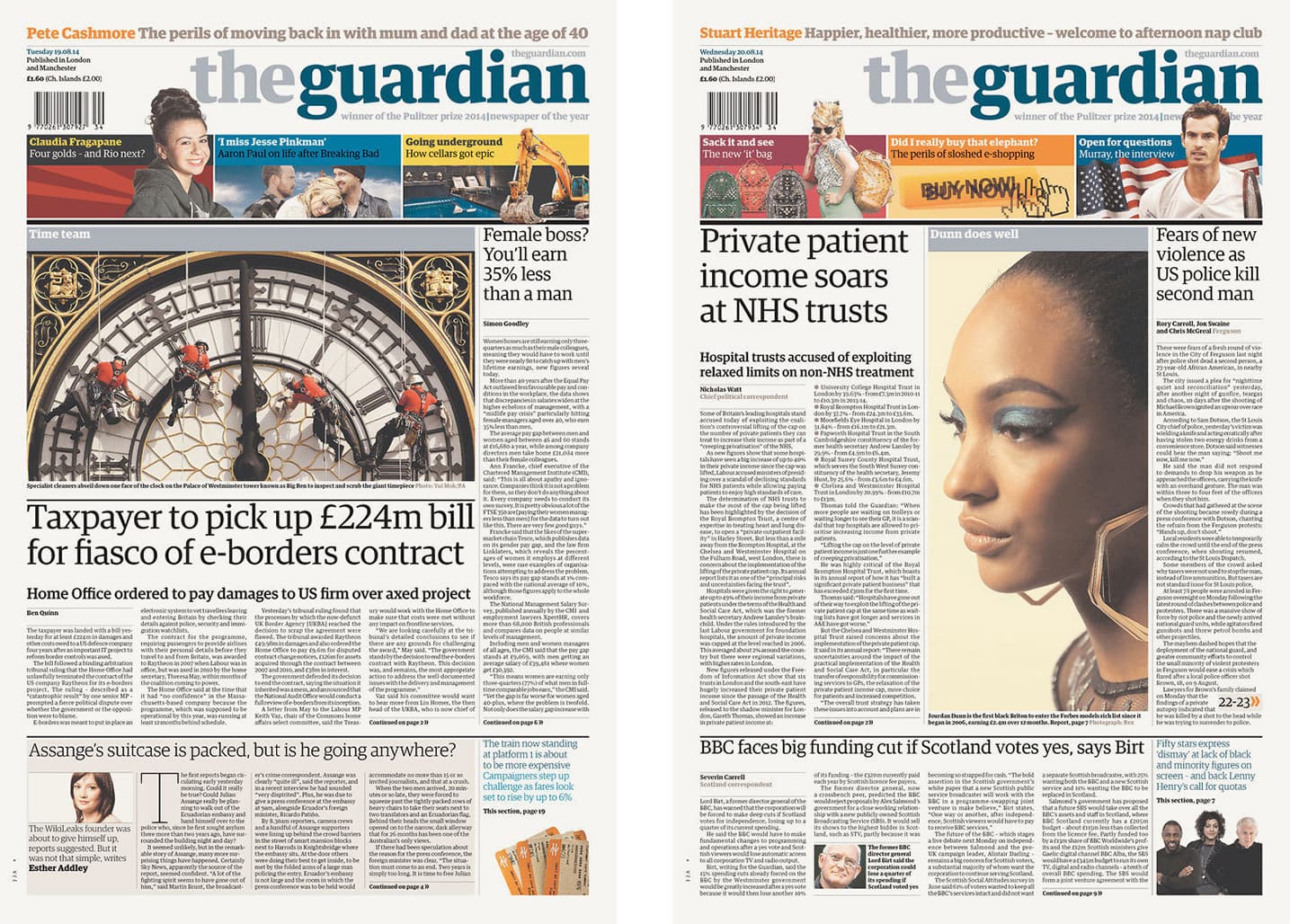
Our latest release is Sanomat Sans, originally created for the Helsingin Sanomat, a daily newspaper in Helsinki, Finland. It was designed to maintain an air of elegance when the newspaper changed from the large broadsheet format to the smaller tabloid format. This family includes an extensive set of alternates, giving the typeface a chameleon-like ability to change tone and personality, which was necessary to satisfy the varying needs of different sections and their designers.
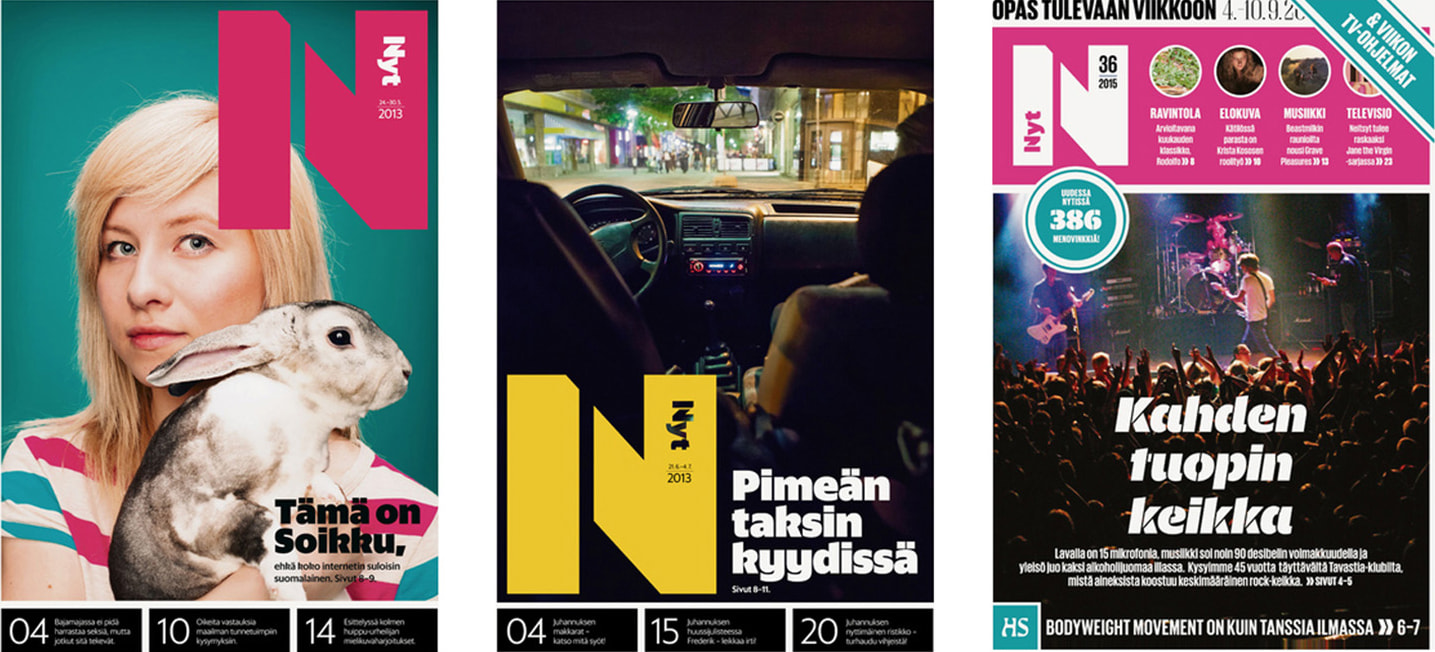
Recent custom projects have included a titling face for New York Magazine’s fall fashion issue, a couple of custom display types for Bon Appétit magazine, and a typeface drawn specially for Esquire’s 1000th issue.
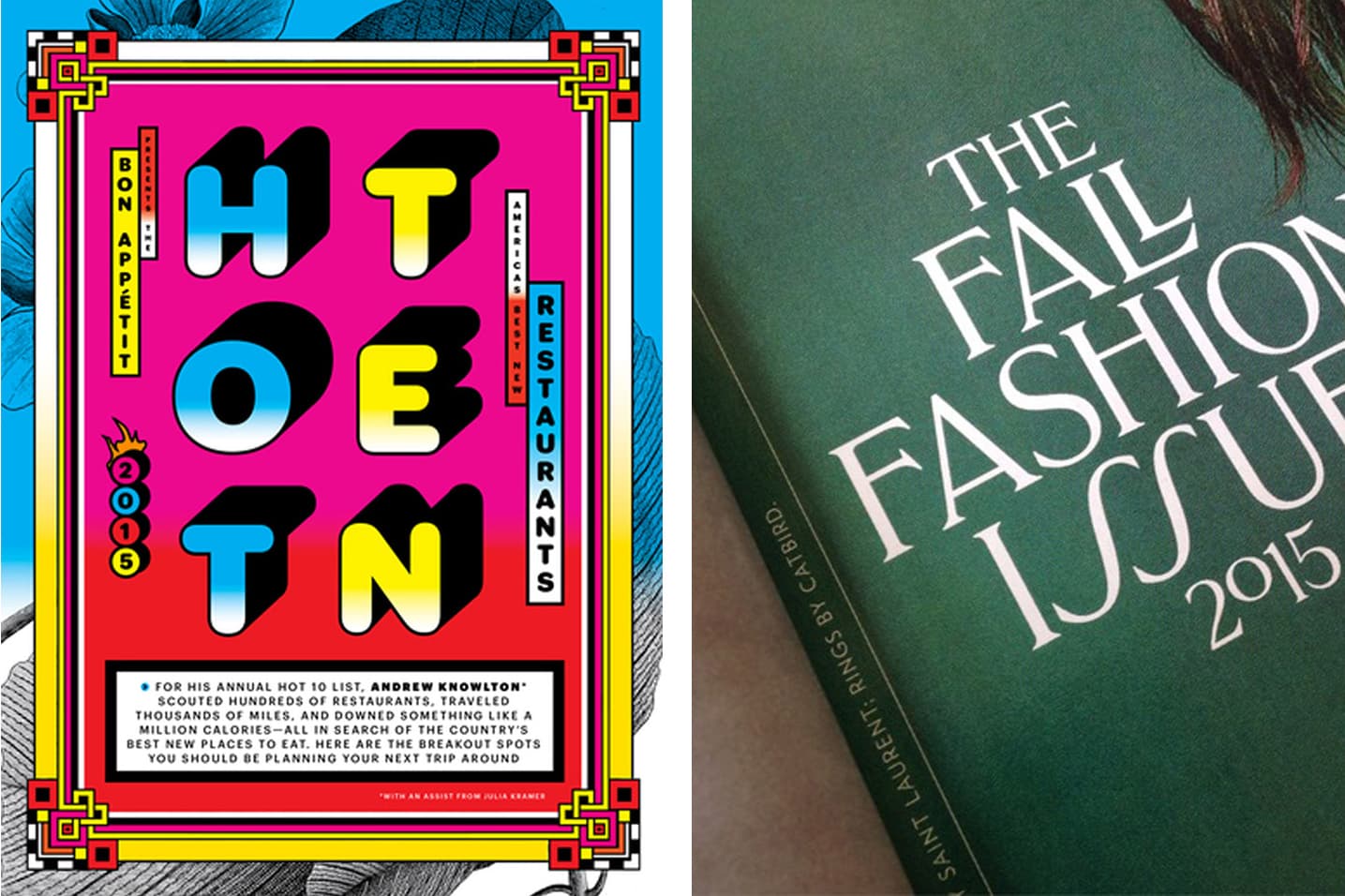
The majority of our work is commissioned, and this is intentional. We really enjoy the process of collaborating with a client, and welcome the challenges of working outside the ideas we would come up with on our own. Aside from the custom work, our staff designers are required to spend one day per week on their own personal typeface projects, and Miguel and Greg will each be releasing a family in the next year.
The customers who license fonts from our library rather than commissioning new type use our typefaces in a wide variety of ways, from corporate design, to publication design, to book design, to design for the screen. We were a bit later than some other foundries to make our library available for use on the web, because we wanted to make sure we got the quality right. We hope our customers felt it was worth the wait.
Our fonts have been used in everything from iPhone and Android apps, to cable TV interfaces, to ATMs. It has been interesting to learn that many of the same optical compensations that make typefaces readable on newsprint also apply to the screen.
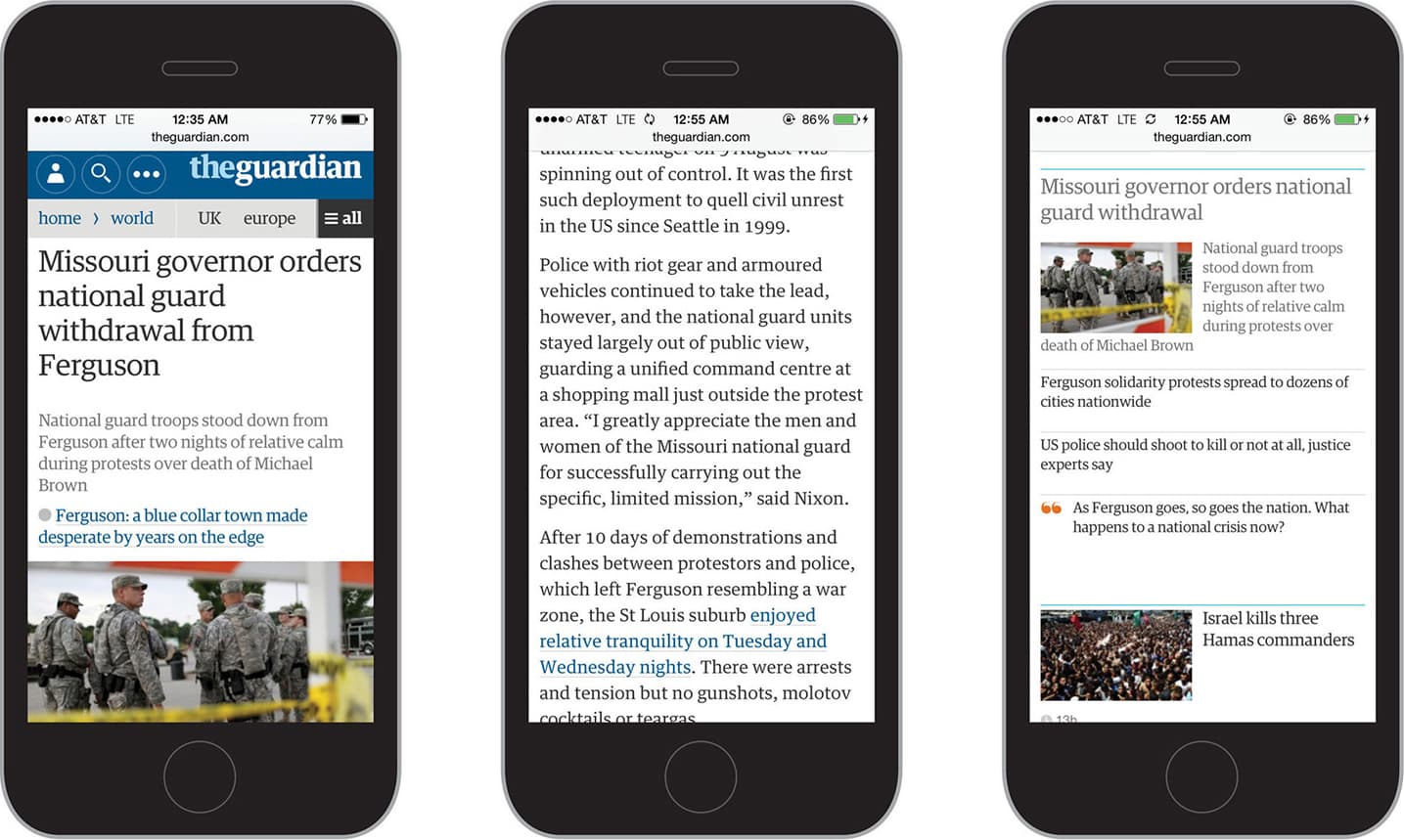
8. Can you tell us about what you are working on right now and what you will like to work on in the future?
We are in the early stages of a couple of interesting custom typeface commissions, but unfortunately our clients don’t want us to talk about them until they’re finished. By the time this interview is published, our new website should be up and running. It was designed by our friends at Projects here in New York, and has been over a year in the making. Once our new website has launched, our next goal is to release the typeface Paul and I drew for the American magazine Vanity Fair, and continue working through our backlog of unreleased typefaces.
9. What do you think about your company positioning, for its raison d’etre in the font design/development industry?
We are first and foremost a custom type design studio, and this is where most of our energy goes, even if it isn’t our primary revenue source. Paul and I both have a background in publication design, which I think gives us a good understanding of what publication designers need, and makes it easy for us to talk to them. Most of the typefaces in our library were originally commissioned, many of them by magazines and newspapers, and I think we have reputation as editorial type designers.